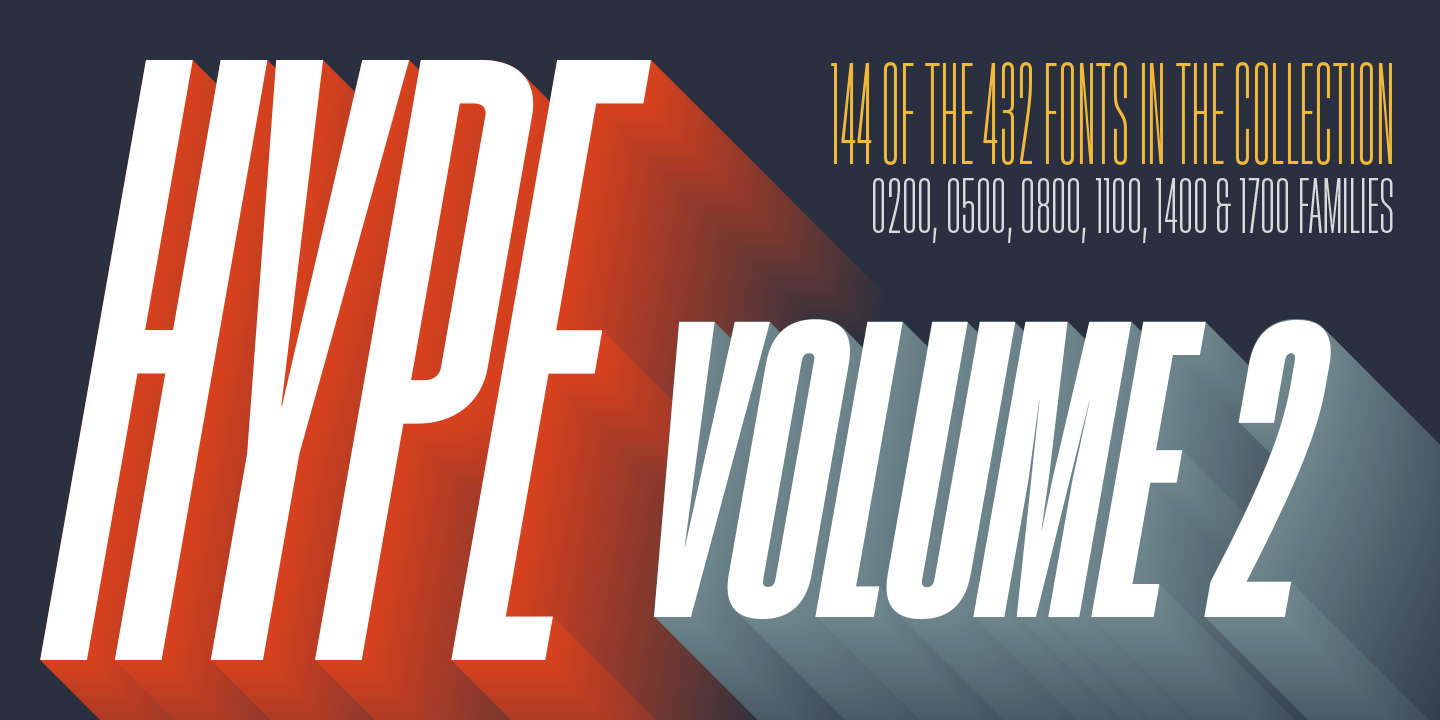
Hype vol 2 Font is perfect for streetwear brand logos, urban music album covers, skateboarding culture graphics, hip-hop event posters, modern graffiti designs, youth fashion campaigns, social media influencer content, underground music promotions, street art exhibitions, and contemporary lifestyle branding.
Hype vol 2 Font is exciting because it channels the raw energy and authentic street culture through its bold, contemporary letterforms that capture the pulse of urban creativity while delivering messages with unapologetic confidence and cutting-edge style that resonates with modern youth culture.
Hype vol 2 Font family includes Regular, Bold, Light, Stencil, Italic, Condensed, Outline, and Distressed variations, offering designers a complete arsenal of street-inspired typography tools to create powerful visual statements that dominate contemporary urban design landscapes.
Hype vol 2 Font represents the evolution of street culture and urban artistic expression, making it an essential choice for brands and creators who want to connect authentically with contemporary youth markets and street culture enthusiasts. This dynamic typeface brings credibility and edge to any design project, whether you're developing streetwear collections, creating music industry materials, or designing social media campaigns targeting Gen Z audiences. The aggressive character design of Hype vol 2 Font Free Download ensures maximum impact while maintaining excellent readability across all digital platforms and street-level applications.
Fashion industry professionals consistently choose Hype vol 2 Font for streetwear brands, sneaker releases, and urban lifestyle products because of its ability to instantly communicate authenticity, rebellion, and connection to underground culture movements. The font's aggressive appearance makes it particularly effective for targeting young consumers who value street credibility and cultural relevance.
Hype vol 2 Font excels in digital environments where viral potential and cultural resonance are paramount. Social media managers and content creators leverage this font to create posts that feel genuinely connected to street culture, while app developers use it for music streaming platforms and urban lifestyle applications that celebrate contemporary youth expression.
The music and entertainment industries have embraced Hype vol 2 Font for hip-hop artists, electronic music producers, and underground venues. Its powerful visual presence helps musicians and promoters create marketing materials that resonate with audiences seeking authentic cultural experiences and cutting-edge artistic expression that challenges mainstream conventions.